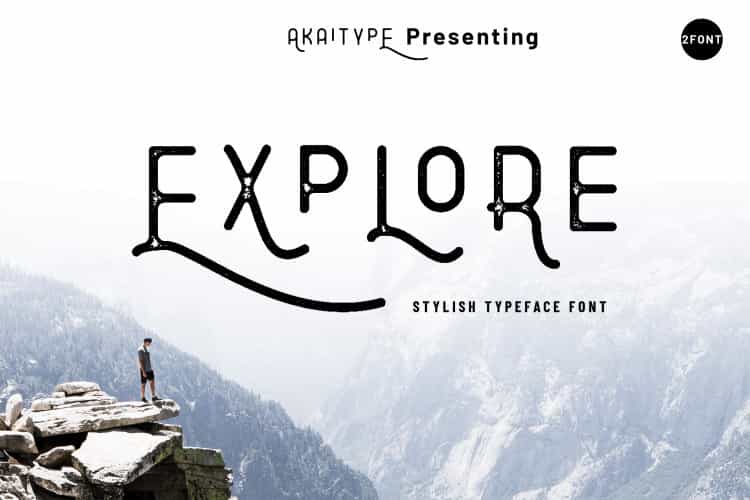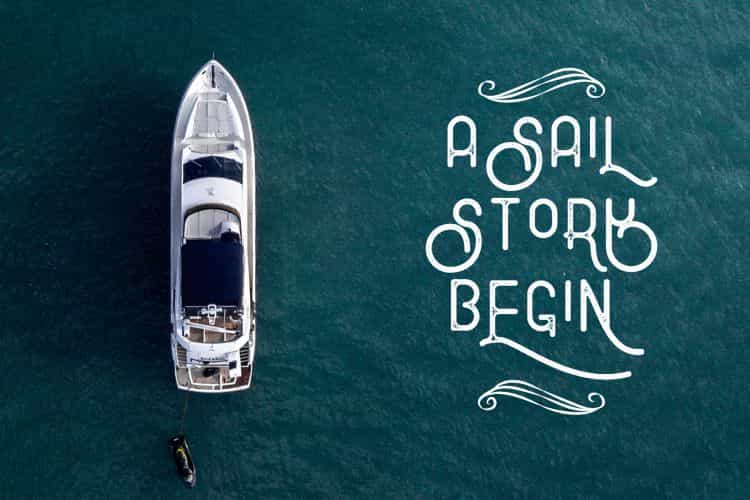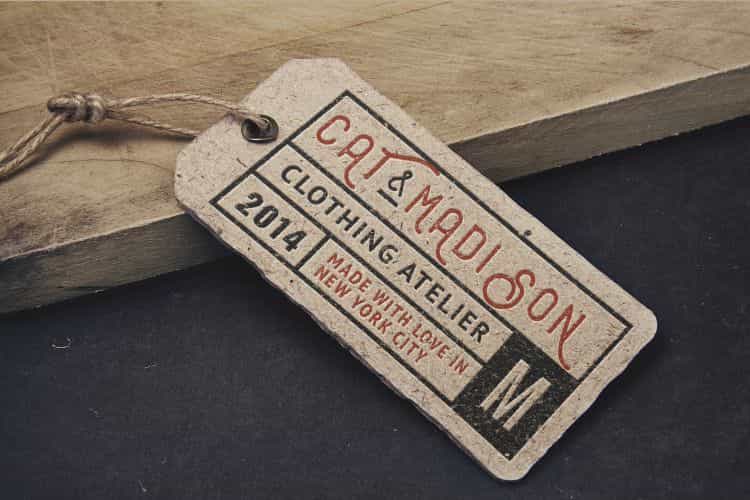
Explore Typeface
Discover Explore Typeface, part of the  Display  Retro Monoline  Typewriter collection—a versatile and unique font perfect for adding a personal touch to your projects. Download it for free and enjoy crafting designs with style, from invitations to social media posts. This font is available exclusively for personal use, giving you the freedom to create without limits. Unlock your creativity with Explore Typeface today!
Check out the latest creation from Akaitype Studio called Stylish Font. A fashionable font with two versions, standard and having a rough outline. Handcrafted with love and created with as much ink and a lot of mess. Check out for clothing design, quotes, and branding.